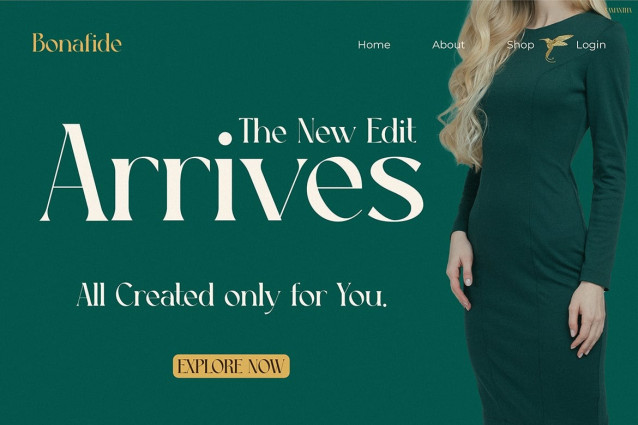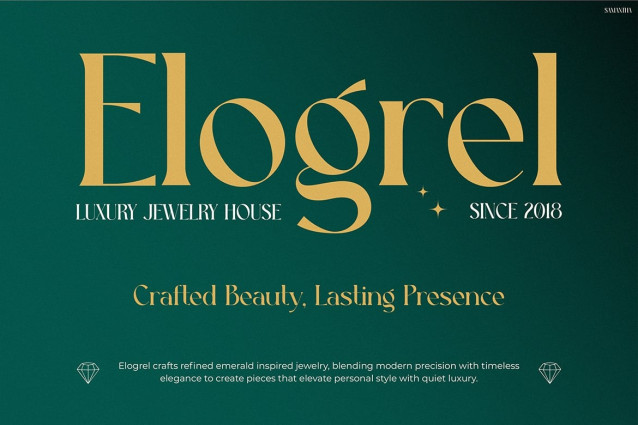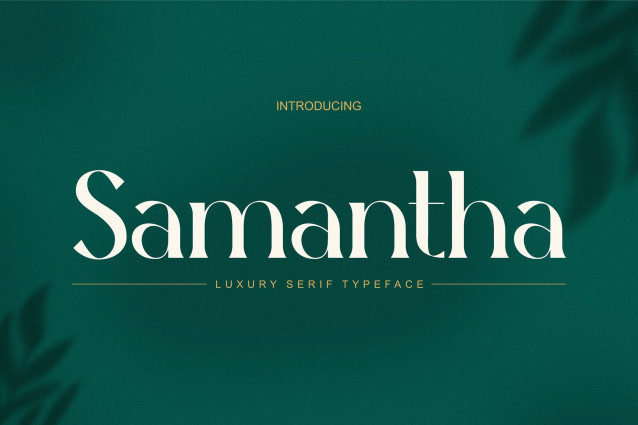
Samantha Serif Font
Samantha Serif Font introduces a refined editorial serif designed for creators seeking a long-tail solution for elevated branding with expressive soft curves and smooth contrast. Its vibe is calm, elegant, and contemporary, making it ideal for fashion-inspired layouts, Instagram branding, and clean product design. The letterforms feature balanced proportions, slender serifs, and subtle transitions, giving the font a polished clarity that works beautifully in both large headlines and delicate text lines.
Samantha blends editorial sophistication with modern readability, it naturally fits into branding systems, poster layouts, magazine-style social media feeds, beauty packaging, ads, and wedding identity design. Designers who want a typeface that feels professional, intentional, and visually cohesive will find Samantha an ideal partner for creating attention-steadying headlines, warm storytelling compositions, and clean product messaging.